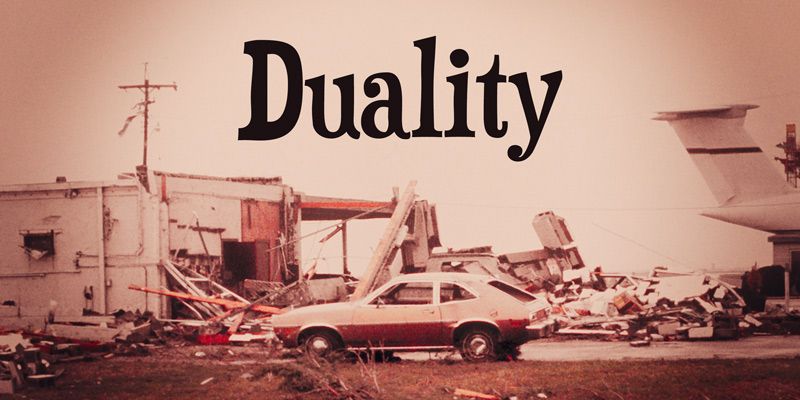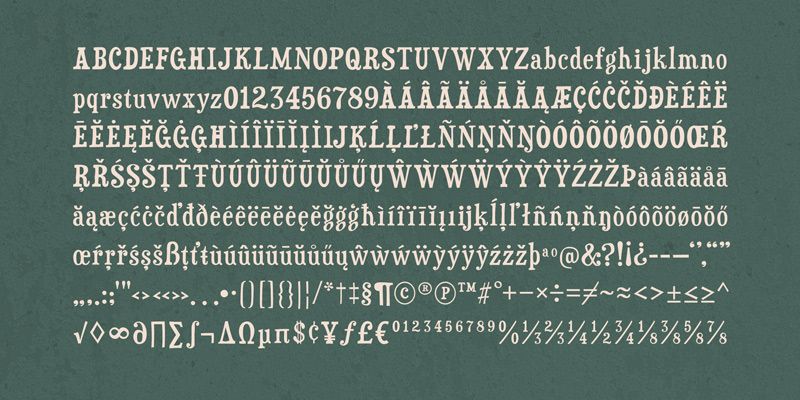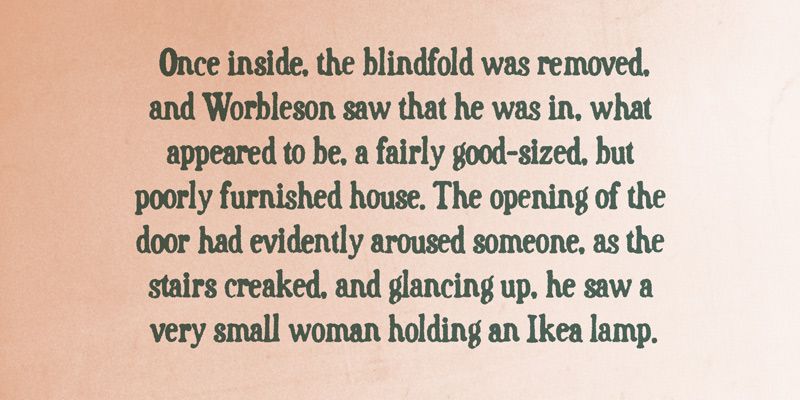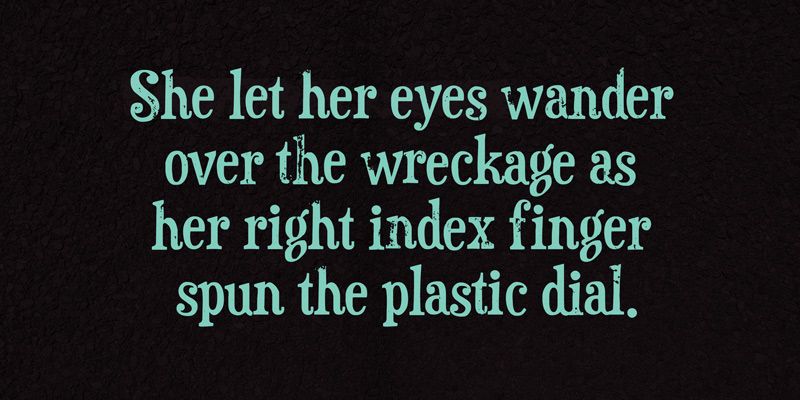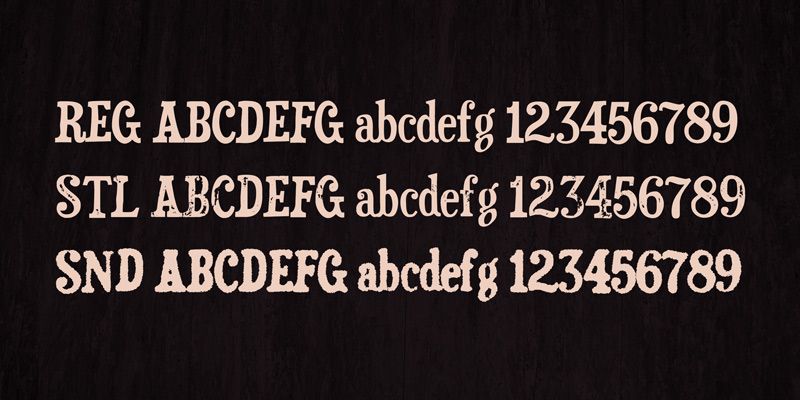
Duality is a condensed slab serif with the irregularity of a design drawn by hand on an early handheld computer. Its compact, rugged forms connect digital culture with touch and wear. Regular shows the construction directly, while Sand and Steel give it two more weathered material moods. That range suits e-paper devices, repairable electronics, experimental music, and games in which technical objects have been carried and handled rather than kept pristine. Use Duality for product names, packaging fronts, equipment markings, and short campaign headlines. The textured styles can imply abrasion or corrosion without changing the underlying lettering.